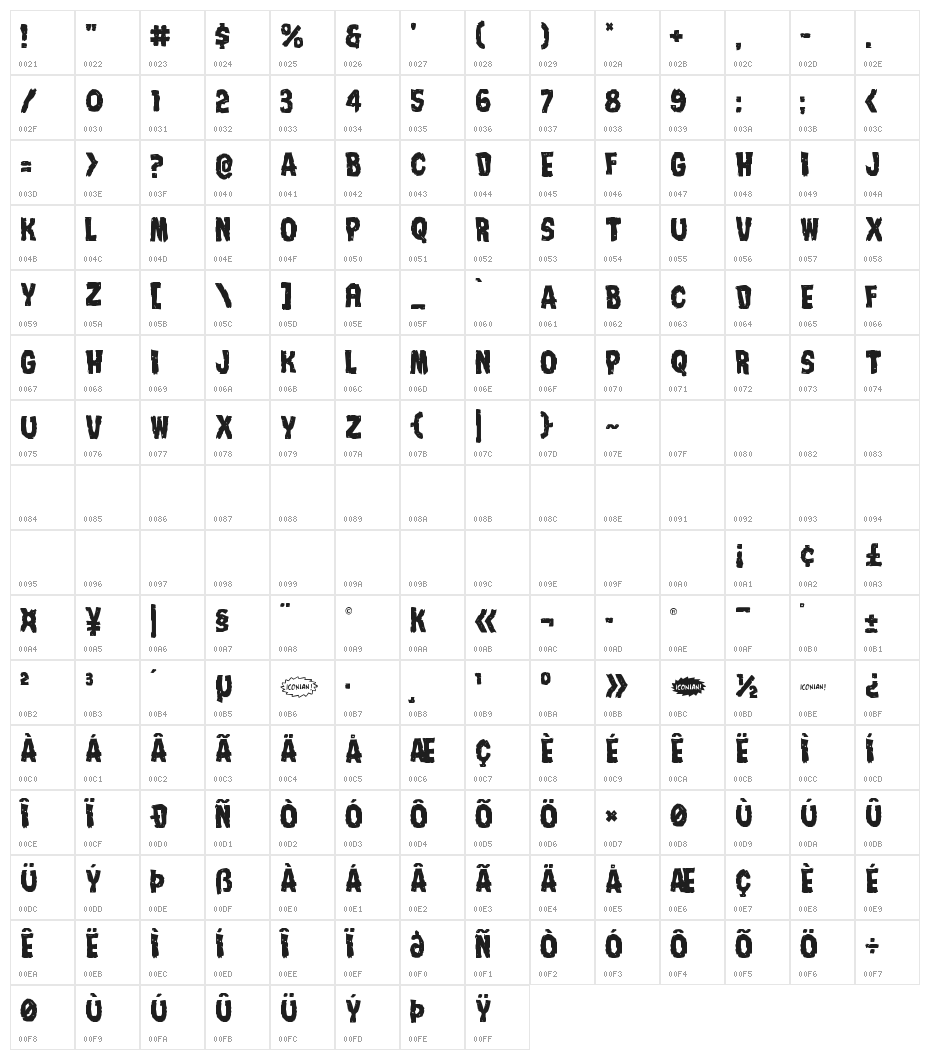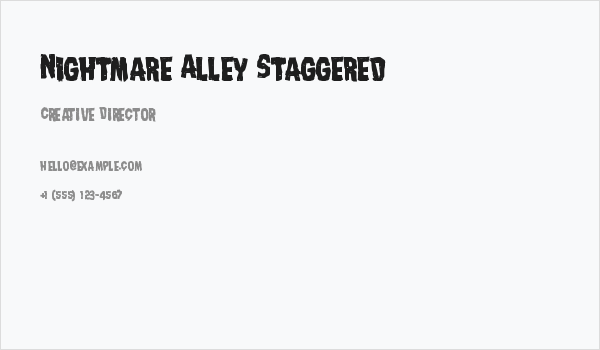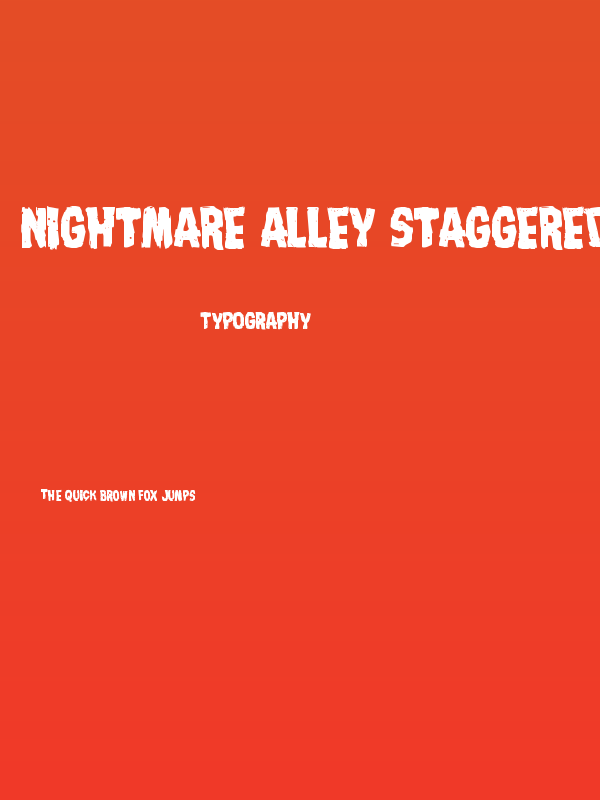
Nightmare Alley Staggered Font
Nightmare Alley Staggered Description
This font features a rugged and distressed style, with each character appearing as if it has been roughly carved or eroded. The bold, uneven strokes give it a chaotic and intense appearance, making it stand out with a sense of urgency and raw energy. The uppercase and lowercase letters maintain a consistent height, while the numbers and special characters follow the same distressed aesthetic. This font is ideal for projects that require a gritty, horror-themed, or rebellious look, adding a dramatic flair to any design.
| Proposed Projects | Ideal for horror-themed posters, album covers, video game titles, and edgy branding. |